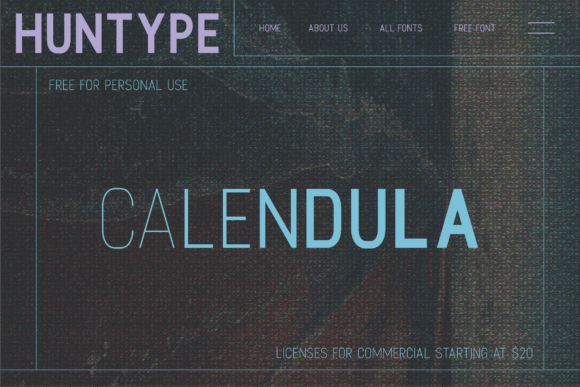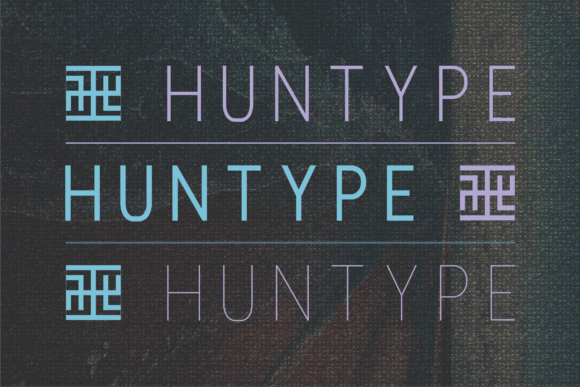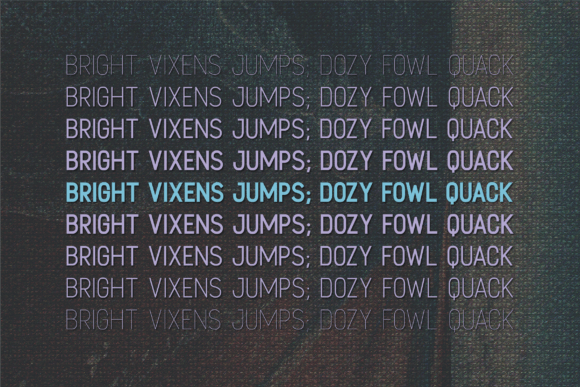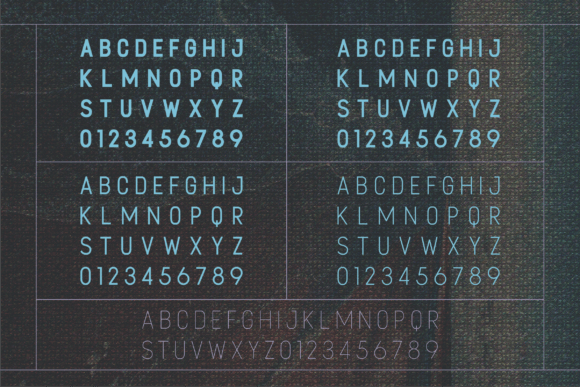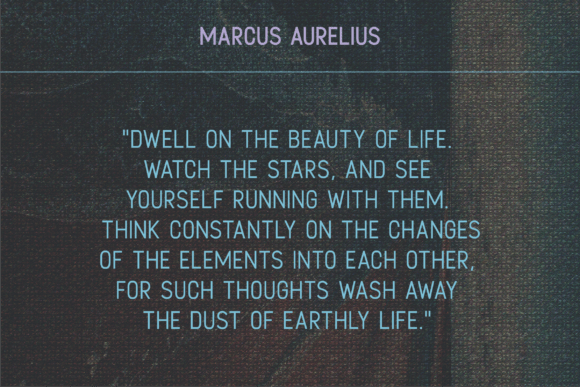
Introducing Calendula Font: A Modern and Versatile Typeface for Every Design Need
In the world of typography, a font can make all the difference in the success of a design project. A well-crafted font can elevate a brand’s identity, convey its message, and leave a lasting impression on its audience. This is where Calendula Font comes in – a modern and versatile font family that is a perfect blend of clean geometric forms and subtle sophistication.
A Harmonious Balance of Sharp Lines and Gentle Curves
Calendula Font is characterized by its precise letterforms and contemporary aesthetic, making it an ideal choice for designers and crafters looking for a reliable and stylish typeface. The font family boasts a harmonious balance of sharp lines and gentle curves, resulting in a unique and refined look that is sure to impress. Whether you’re working on a branding project, a website, or a craft project, Calendula Font is the perfect companion.
A Family of Five Fonts: Catering to Every Design Need
Calendula Font is not just a single font, but a family of five fonts that cater to different design needs. The family includes:
- Calendula Black: Bold and impactful for commanding headlines.
- Calendula Bold: Strong and persuasive for key messages.
- Calendula Regular: A balanced and versatile mid-weight for diverse applications.
- Calendula Light: Subtle and elegant for refined designs.
- Calendula Thin: Delicate and sophisticated for a minimalist touch.
Each font in the family stands alone, impactful and refined in its own right. This versatility makes Calendula Font an excellent choice for designers who need a range of options to suit different design requirements.
Use Cases for Calendula Font
Calendula Font is suitable for a wide range of design applications, including:
- Branding and Logo Design: Create a lasting impression with Calendula Font’s bold and sophisticated styles.
- Web Design: Use Calendula Font to create a responsive and visually appealing website that adapts to different screen sizes.
- Print Design: Add a touch of elegance to your brochures, flyers, and business cards with Calendula Font.
- Crafting and DIY Projects: Use Calendula Font to add a personal touch to your handmade crafts, such as journals, cards, and gift tags.
Why Choose Calendula Font?
So, why choose Calendula Font over other font families? Here are a few reasons:
- Versatility: With five font styles to choose from, Calendula Font offers a range of options to suit different design needs.
- Legibility: Calendula Font is designed to be highly legible, making it perfect for body text and headlines.
- Uniqueness: Calendula Font’s unique blend of sharp lines and gentle curves sets it apart from other font families.
- Ease of Use: Calendula Font is easy to use and pairs well with other fonts, making it a great addition to any design project.
In conclusion, Calendula Font is a modern and versatile font family that is perfect for designers and crafters looking for a reliable and stylish typeface. With its harmonious balance of sharp lines and gentle curves, Calendula Font is sure to elevate any design project. Whether you’re working on a branding project, a website, or a craft project, Calendula Font is an excellent choice. So, why not give it a try and experience the difference for yourself?